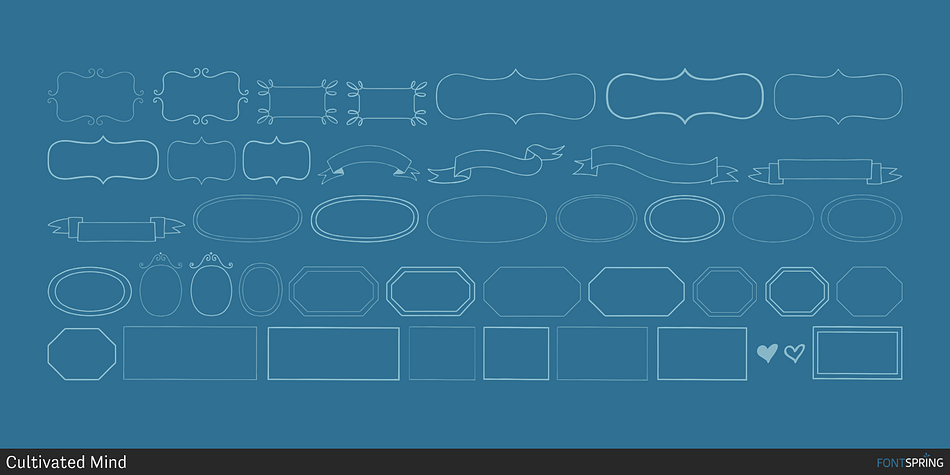
TALUHLA is a dingbat and hand drawn font family. This typeface has four styles and was published by Cultivated Mind.
TALUHLA Borders
Taluhla is lovely handwritten font with a matching set of borders, banners and ornaments. It is unique, elegant and easy to read. Taluhla has 3 different weights (light, regular and bold). It can be best used for invitations, greeting cards, posters, advertising, film, weddings, books, menus and anytime you would like to express yourself kindly.